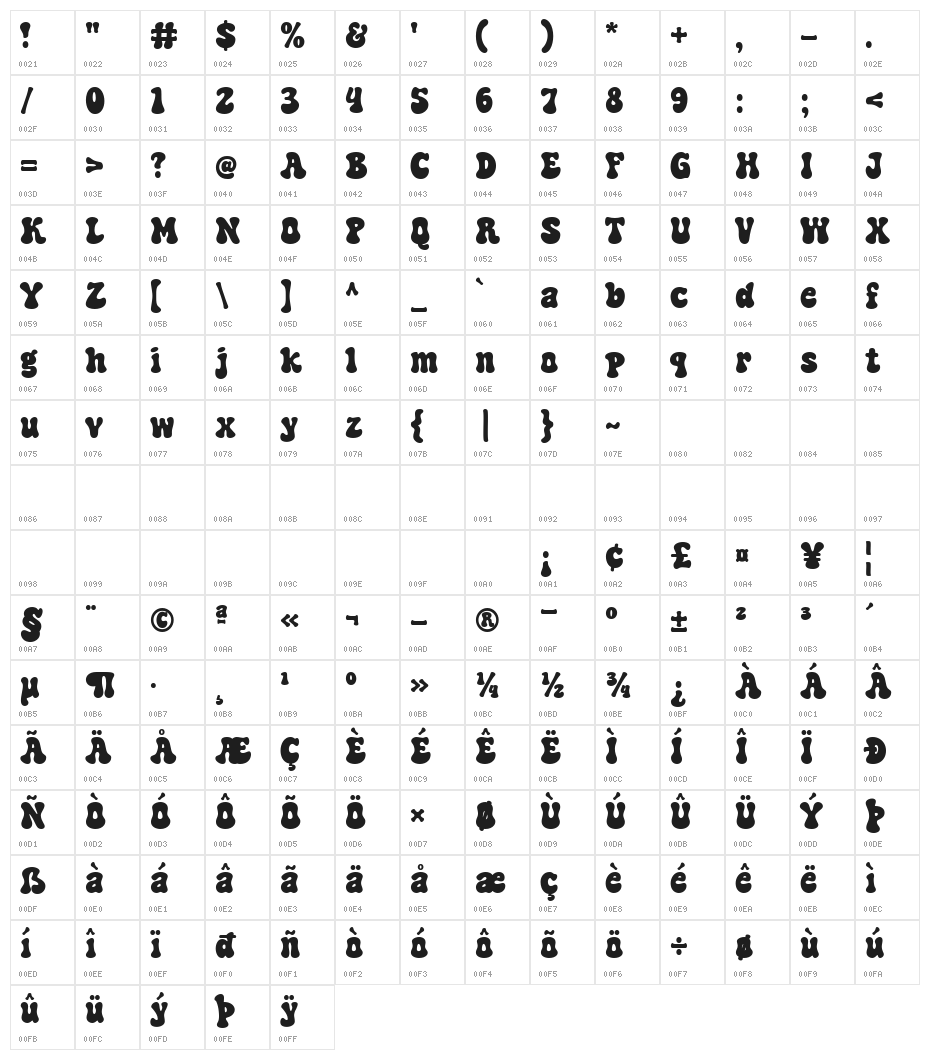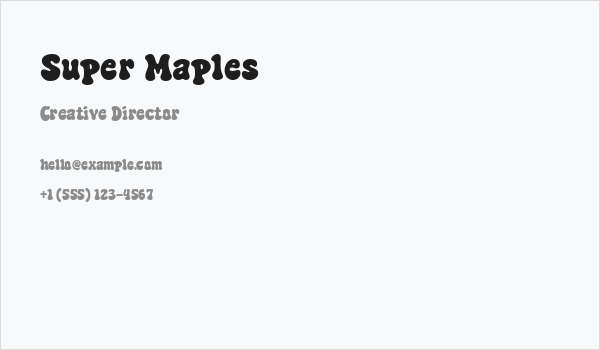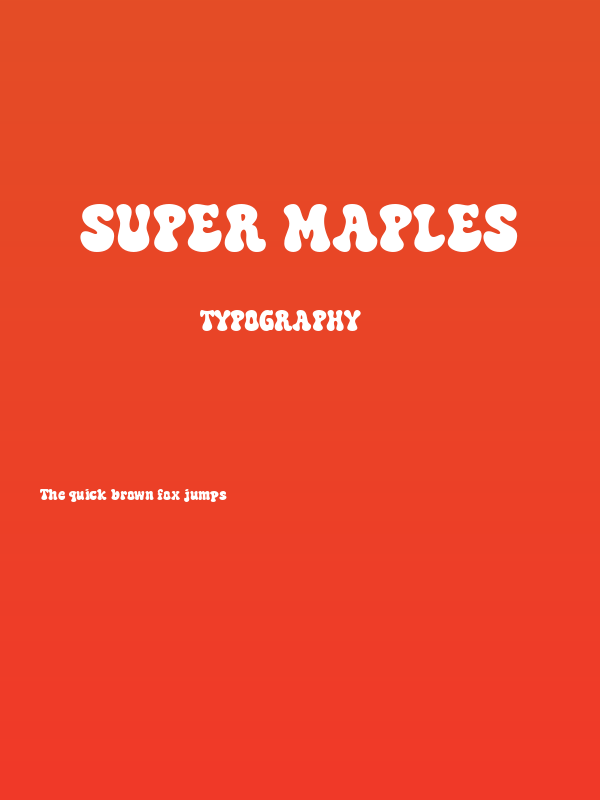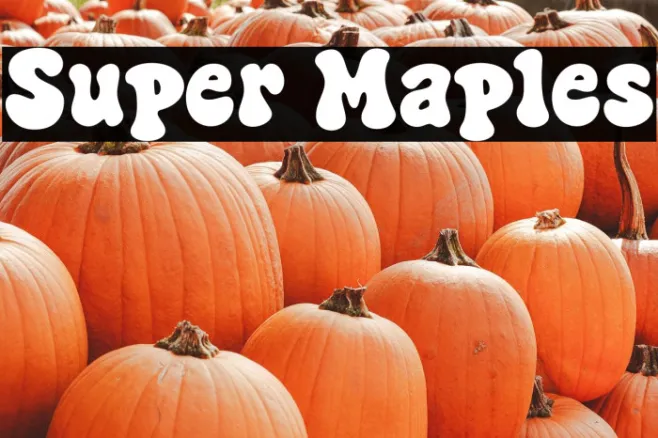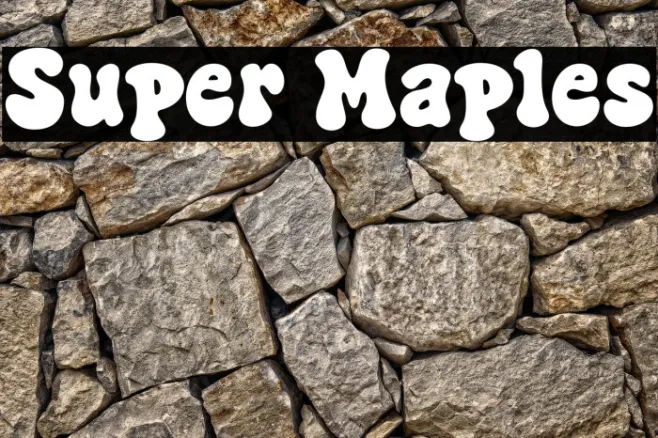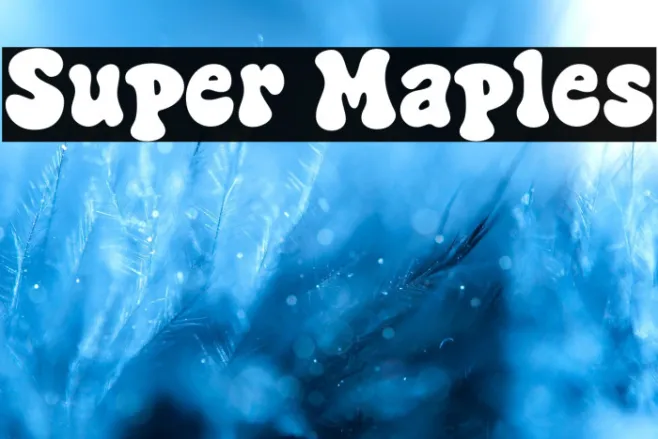
Super Maples Font
Super Maples Description
A bold, playful font with rounded, bubbly characters and high contrast, suitable for eye-catching designs.
| Overall Style | Playful, Fun |
| Proposed Projects | Children's books, posters, playful branding. |